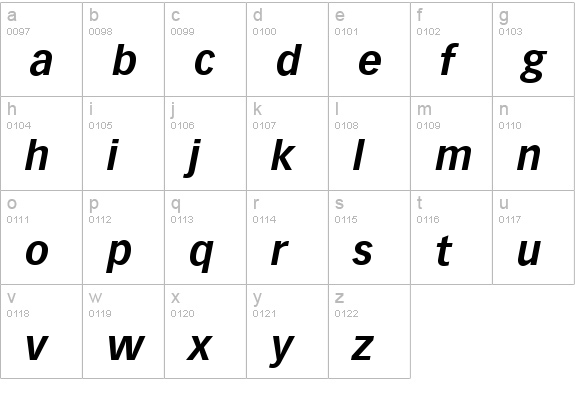
Vectora LH 76 Bold Italic Font Details
Vectora LH 76 Bold Italic is a strong, high-contrast, italic variant in the Vectora typeface family \xE2\x80\x94 well suited to headlines, attention-grabbing titles, and strong calls-to-action.
Vectora LH 76 Bold Italic is a visually striking and dynamic typeface that exudes confidence and power. Designed with a perfect balance of boldness and elegance, this font commands attention and adds a touch of sophistication to any design project. With its unique combination of strong lines and playful curves, Vectora LH 76 Bold Italic stands out from the crowd, making it the perfect choice for logos, headlines, and other attention-grabbing elements. Its bold and italicized form adds a sense of emphasis and adds a touch of excitement to your text. What sets Vectora LH 76 Bold Italic apart is not only its aesthetic appeal but also its versatility. This font can seamlessly adapt to both modern and traditional designs, making it suitable for a wide range of applications. Whether you are designing a website, a magazine spread, a poster, or even a business card, Vectora LH 76 Bold Italic will elevate your design to new heights. And the best part? Vectora LH 76 Bold Italic is freely available to download at FontsMarket.com. You can enjoy the benefits of this exceptional font without any cost, allowing you to enhance your design projects without breaking the bank. So why wait? Download Vectora LH 76 Bold Italic today and let your creativity soar.